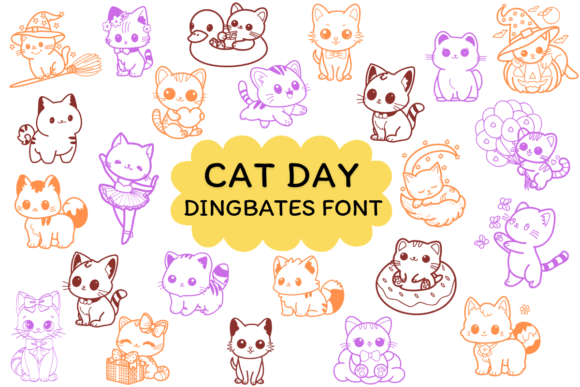
The Purr-fect Font: A Deep Dive into Cat Day Font
I’ll never forget the time I was working on a whimsical wedding invitation project for a client who was a cat lover. I had all the design elements in place – the cute illustrations, the playful color scheme, and the delightful layout. However, something was missing. The font I was using just didn’t have that special feline flair I was looking for. That’s when I stumbled upon the Cat Day font, a dingbats font with a distinctly feline style. It was love at first sight! 💕
An Honest Review of Cat Day Font
What I Love About Cat Day Font
- ✨ The font’s extensive collection of feline-themed glyphs and dingbats adds a playful touch to any design project.
- ✅ It’s incredibly versatile and can be used for a wide range of creative projects, from wedding invitations and DIY crafts to logos and decorations.
- 🎉 The font’s unique style is sure to delight cat lovers and add a personal touch to your designs.
While I adore the Cat Day font, there are a few minor quirks to be aware of. For instance:
- ⚠️ Some of the glyphs can be a bit intricate, which may make them difficult to read at smaller font sizes.
- 🤔 The font may not be the best choice for body text, as it’s primarily designed for use as a display font or for adding decorative elements to your designs.
The Designer Inspiration Behind Cat Day Font
The Cat Day font was inspired by the playful, whimsical world of cats. The designer, a self-proclaimed cat lover, wanted to create a font that would capture the unique personality and charm of our feline friends. The result is a font that’s both fun and sophisticated, perfect for adding a touch of feline flair to your designs.
| Font Name | Cat Day Font |
| Author | Natchuta |
Q: What type of projects can I use the Cat Day font for?
A: The Cat Day font is incredibly versatile and can be used for a wide range of creative projects, from wedding invitations and DIY crafts to logos and decorations.
Q: Are there any limitations to using the Cat Day font?
A: While the Cat Day font is a wonderful addition to any design project, it’s primarily designed for use as a display font or for adding decorative elements to your designs. It may not be the best choice for body text.